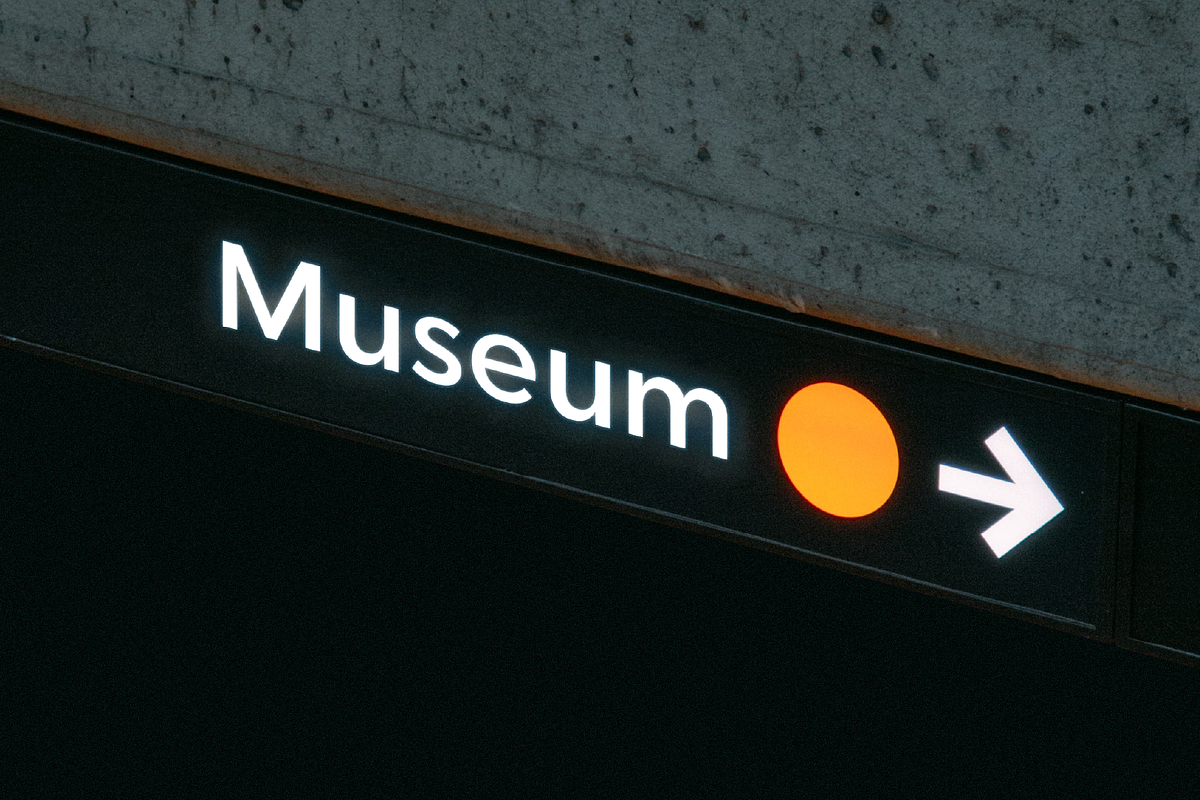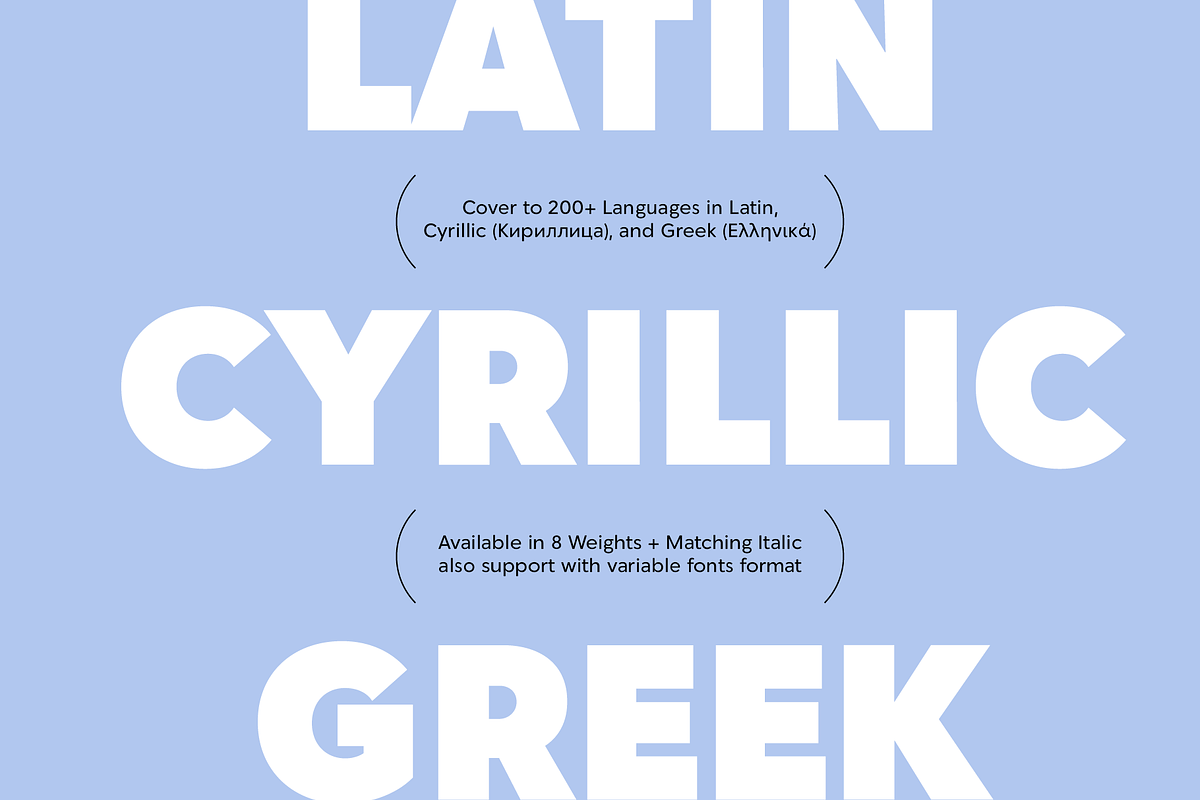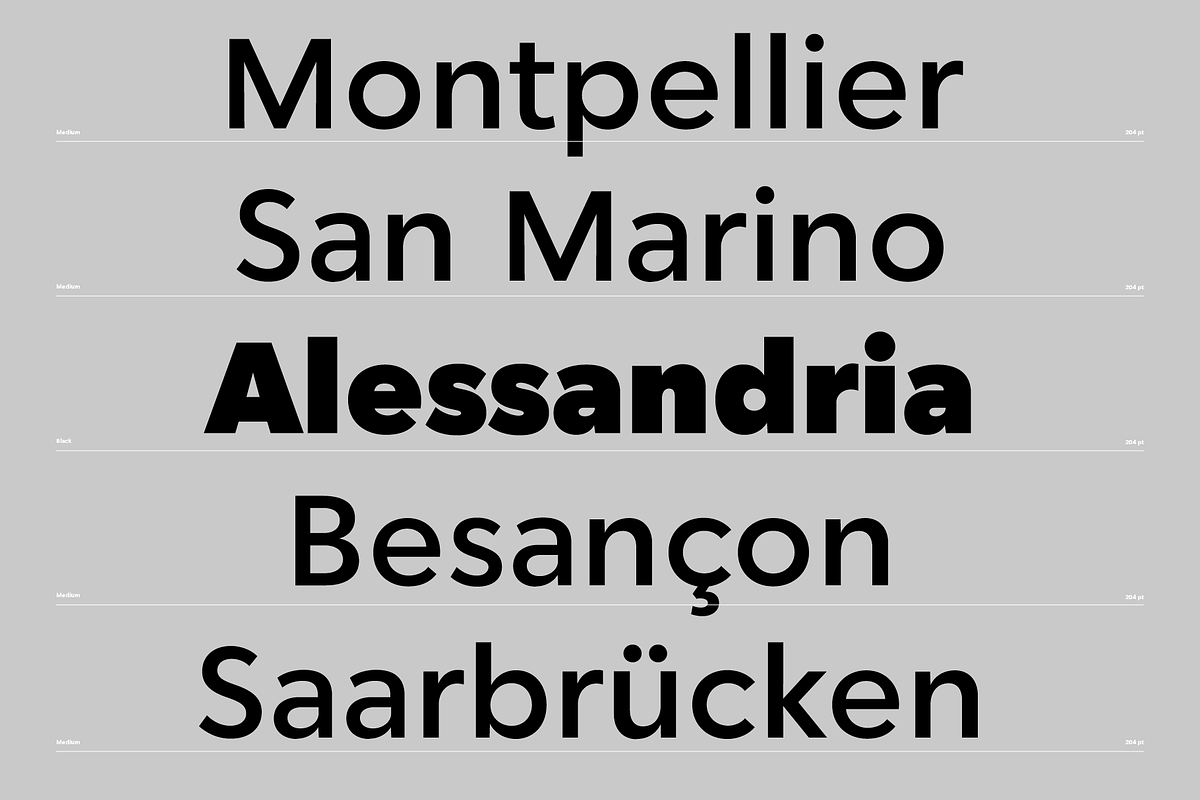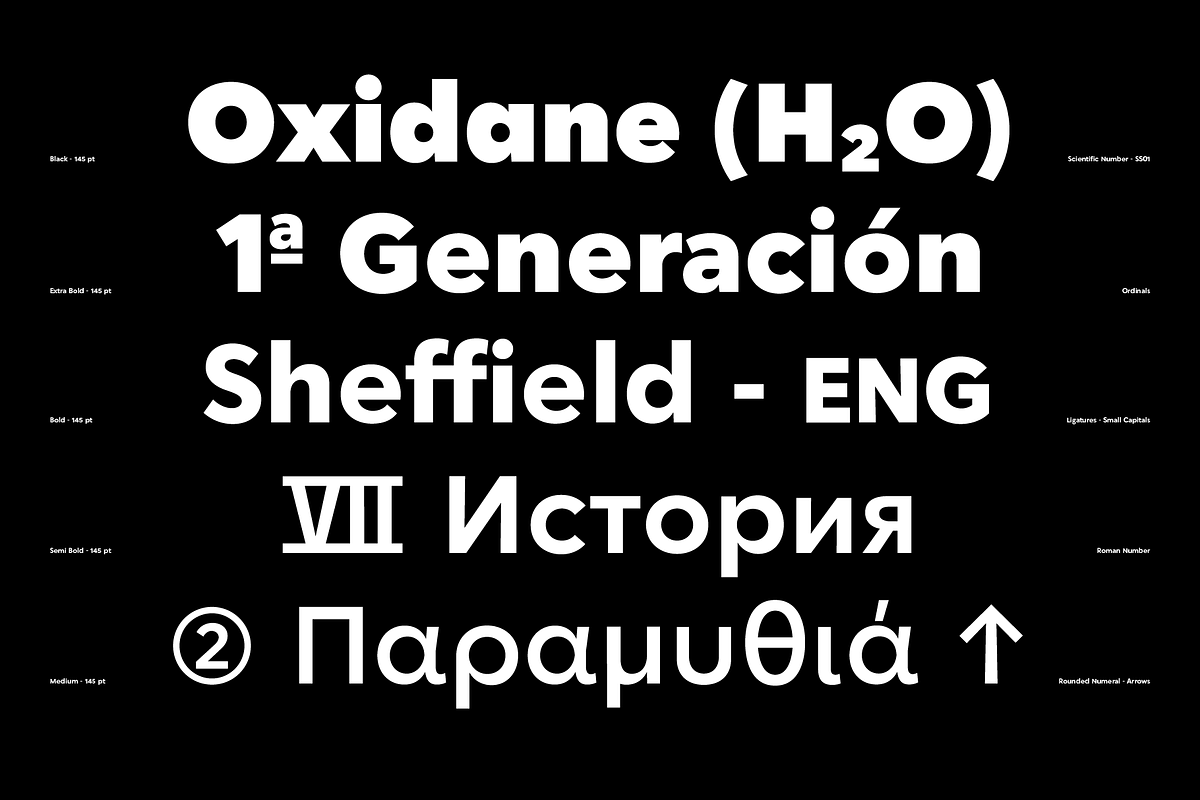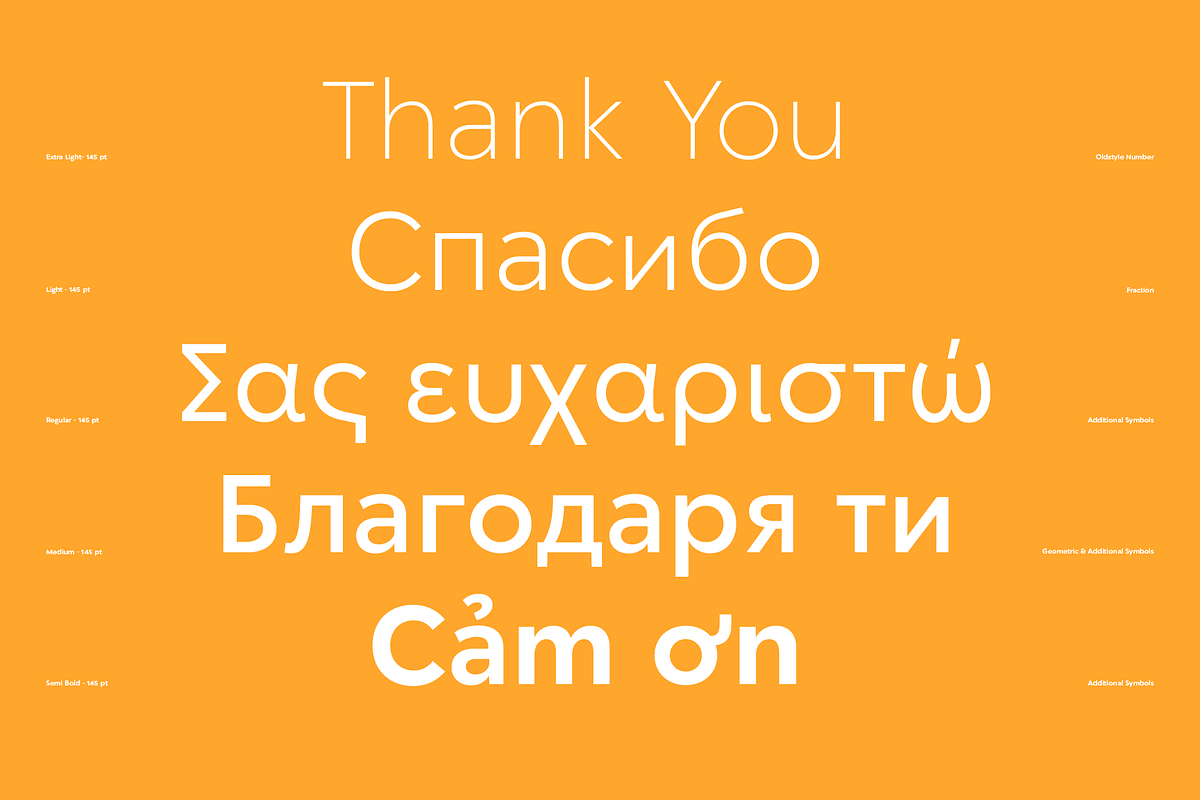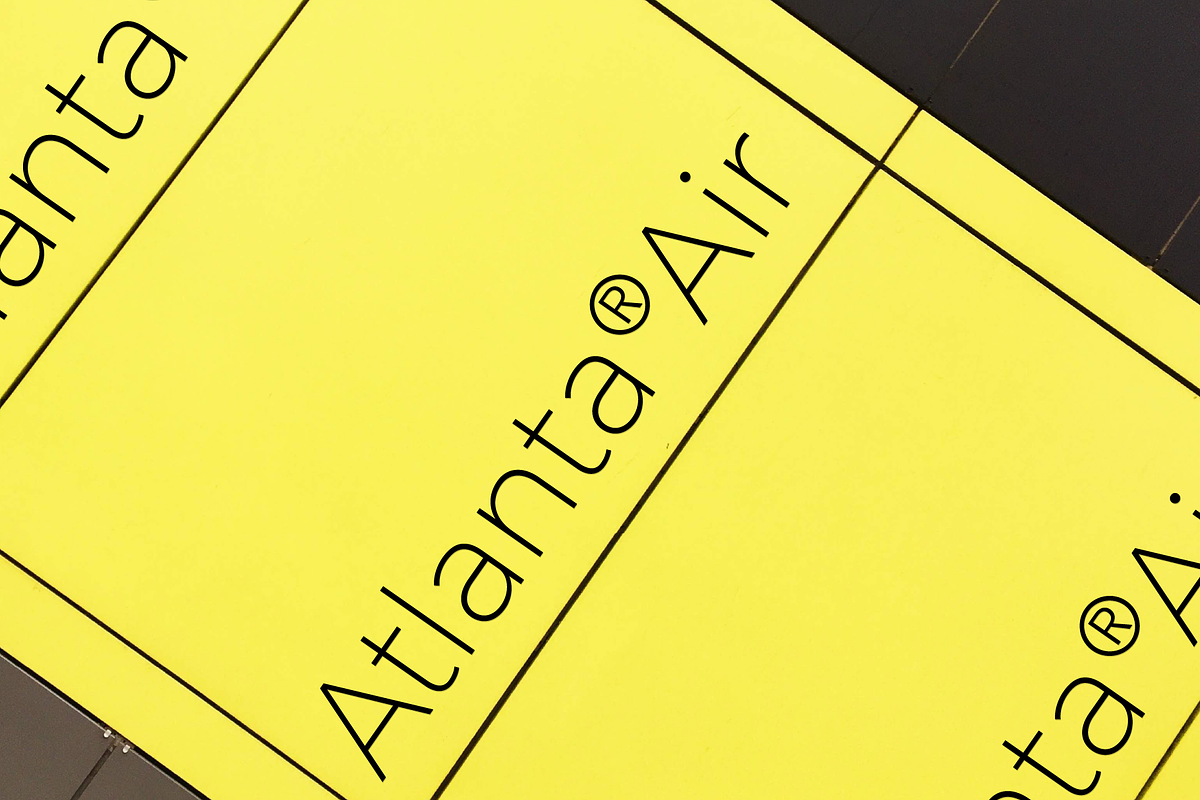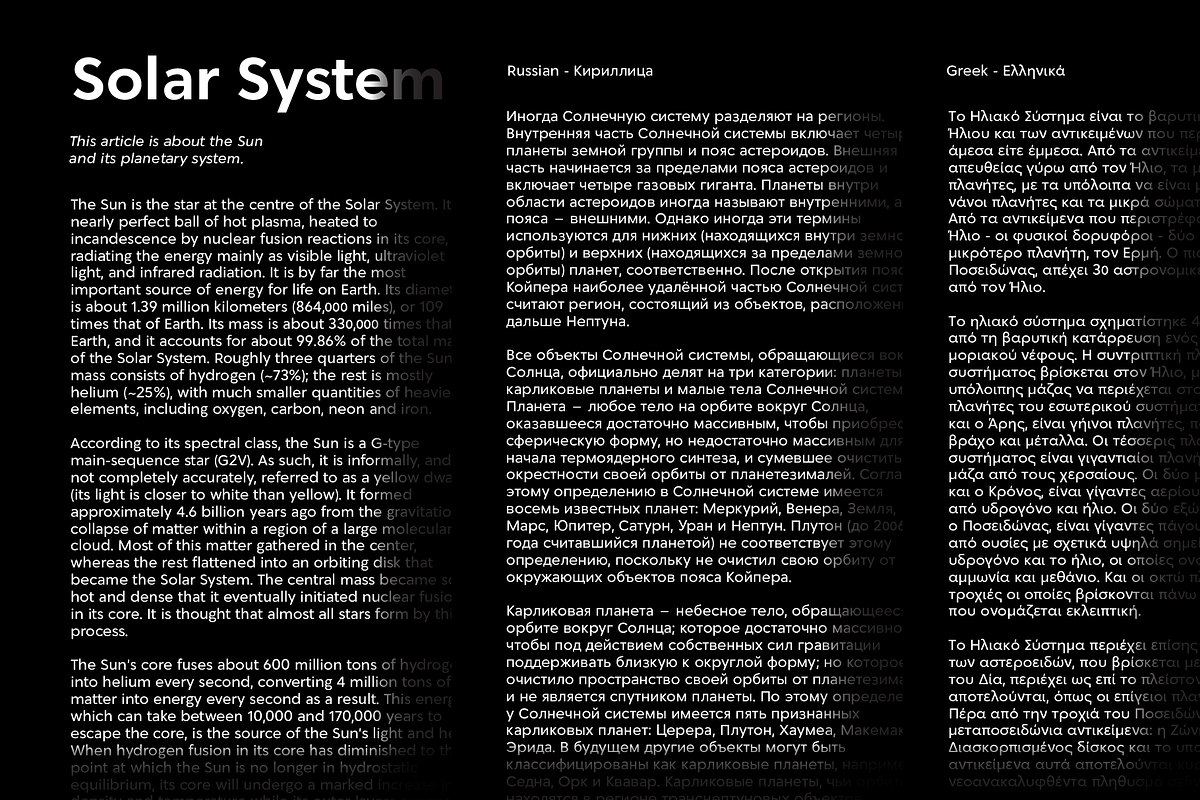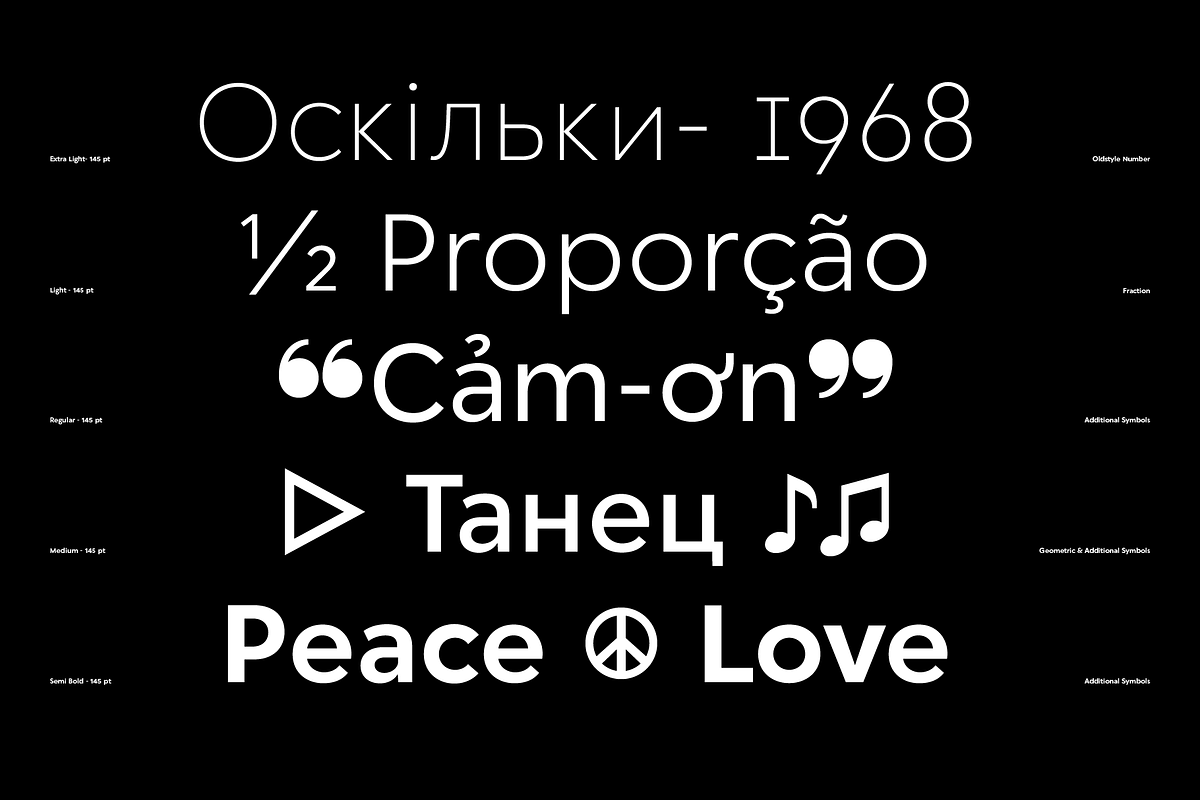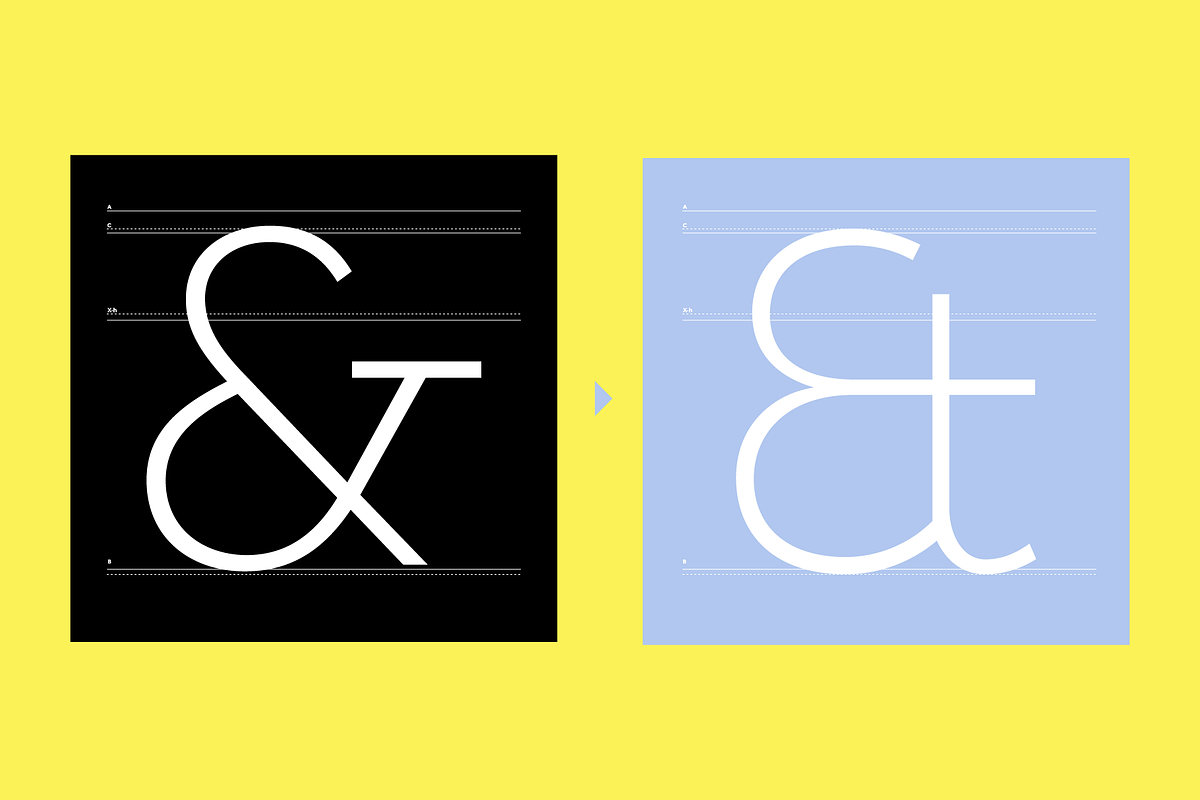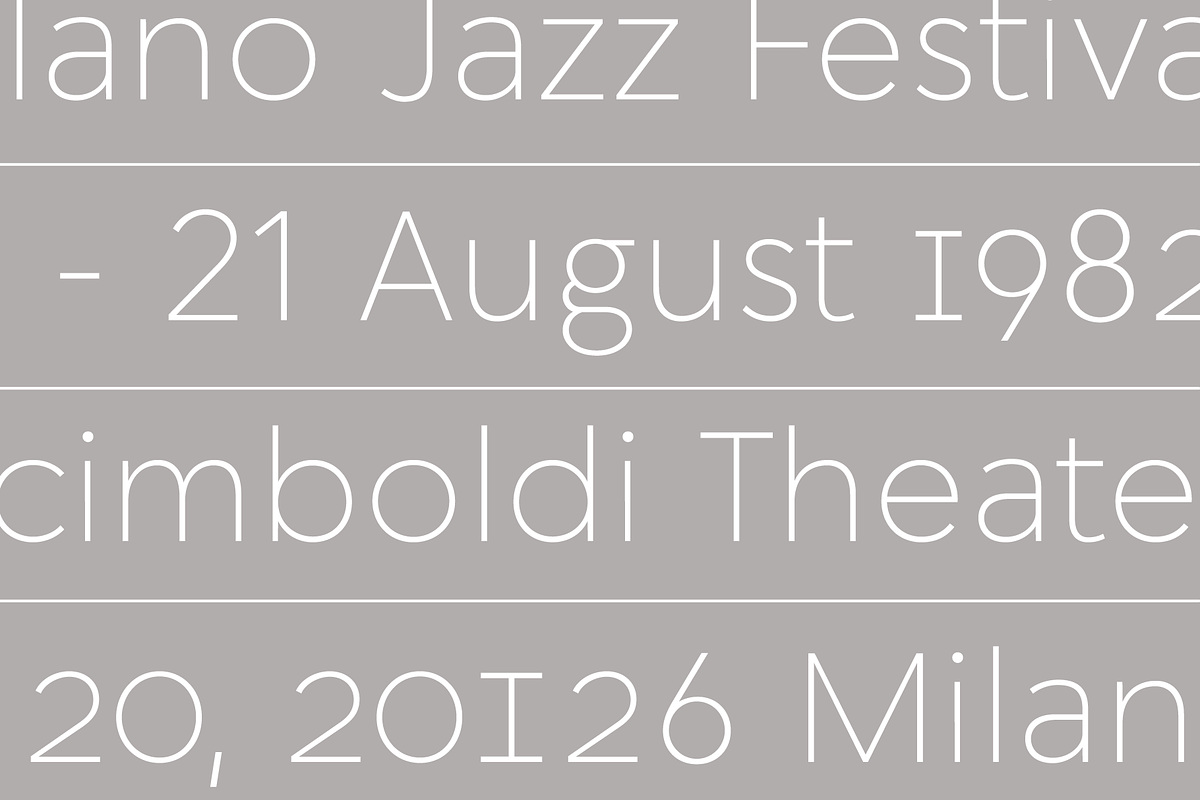
Fragmatika is a new geometric sans serif family with 3 basic scripts (Latin, Cyrillic, and Greek). This font has a monolinear specification in which the thickness of the horizontal and vertical contrast is almost the same. Besides that, the structure of these letters comes from basic geometric shapes; this font can be used in several editorial positions, such as titles, captions, and body text.
Available in 2 Categories; Display & Text Display: 8 Weights and Text 6 Weights 3 Basic Scripts: Latin, Cyrillic, and Greek.